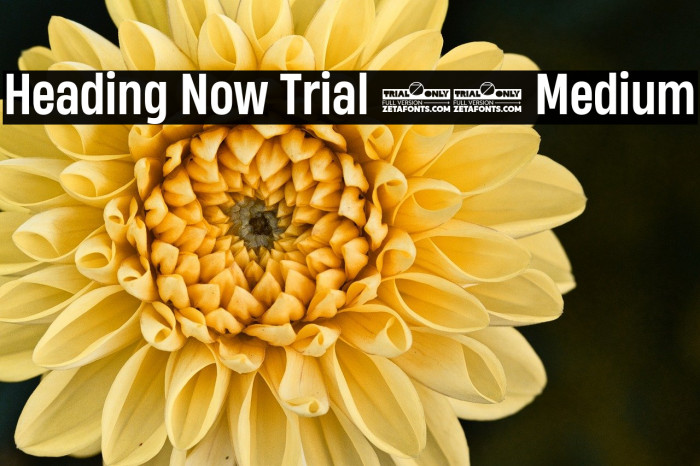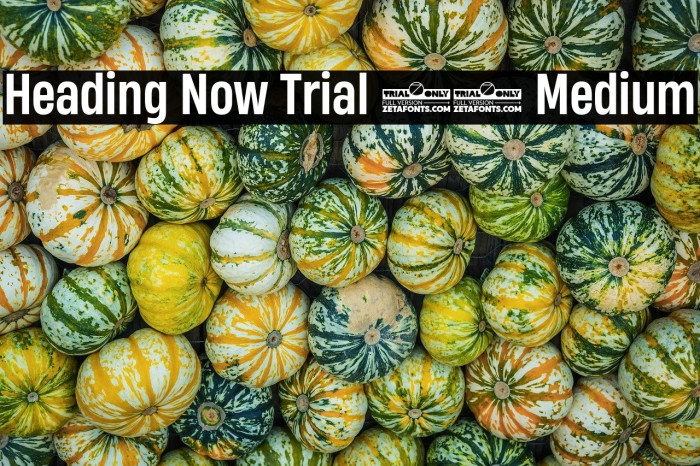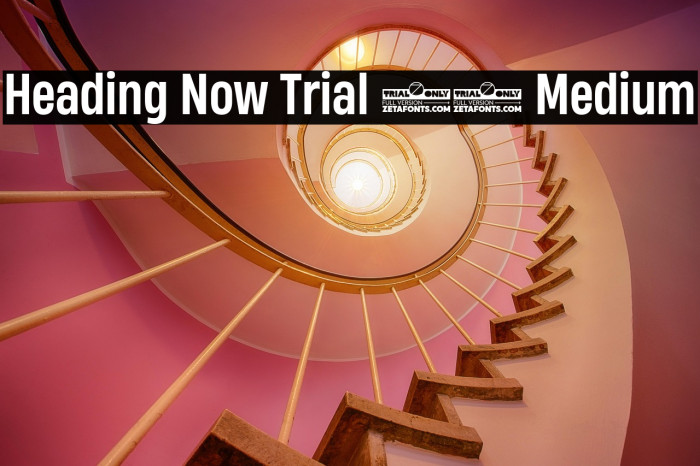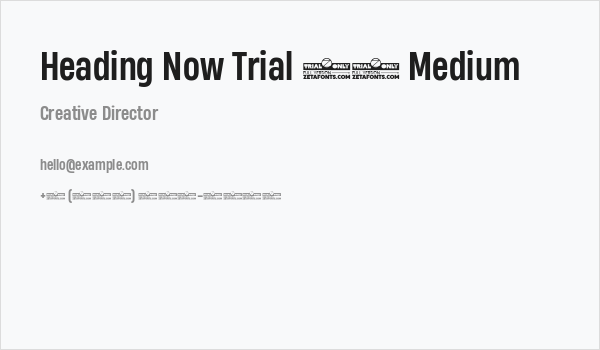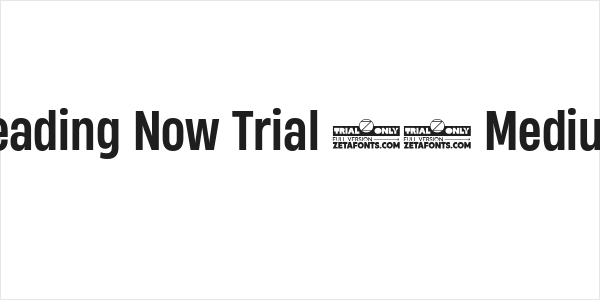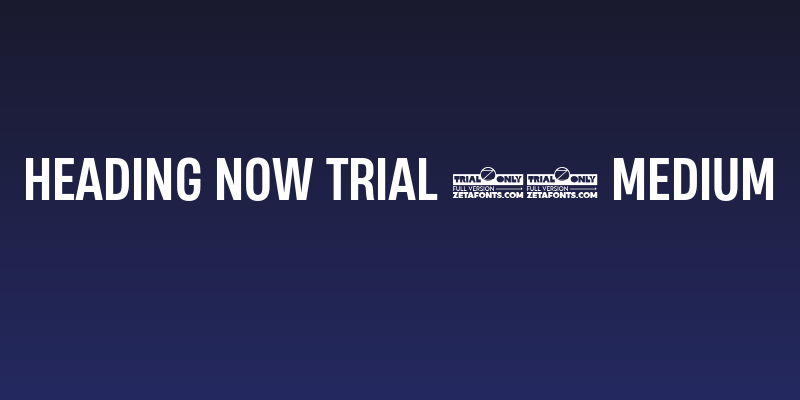
Heading Now Trial 55 Medium Font
Heading Now Trial 55 Medium Description
This font features a bold and modern sans-serif design, characterized by clean lines and a strong presence. The uppercase and lowercase letters maintain a consistent height, providing a uniform appearance. The characters are slightly condensed, enhancing readability while maximizing space efficiency. The numerals and special characters are designed to match the overall style, ensuring a cohesive look across all text elements. This font is ideal for making a strong visual impact, with its high contrast and clear legibility.
| Proposed Projects | Ideal for headlines, posters, branding, and advertising materials where a strong, modern look is desired. |